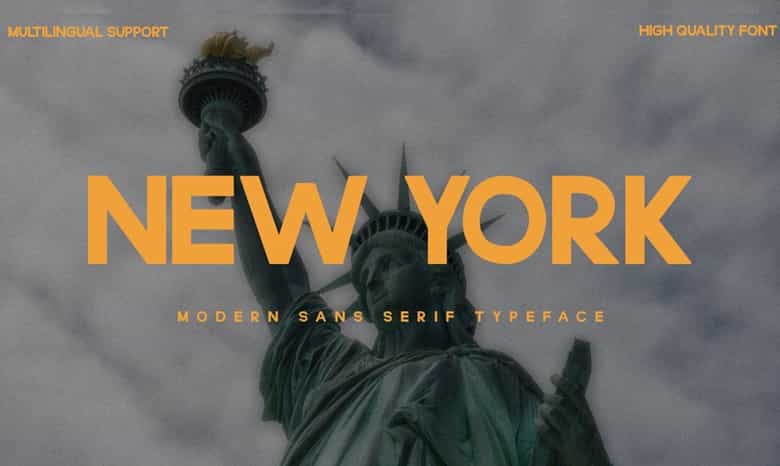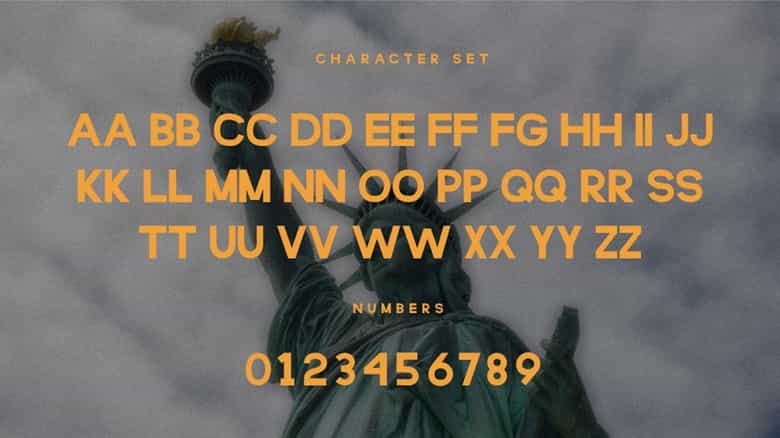
New York is a modern sans serif font that gives an exclusive timeless feel that harmonizes classical and contemporary appearance. Using clean geometric forms, it has great readability at any sizes which makes the font appropriate for use as both display and text.